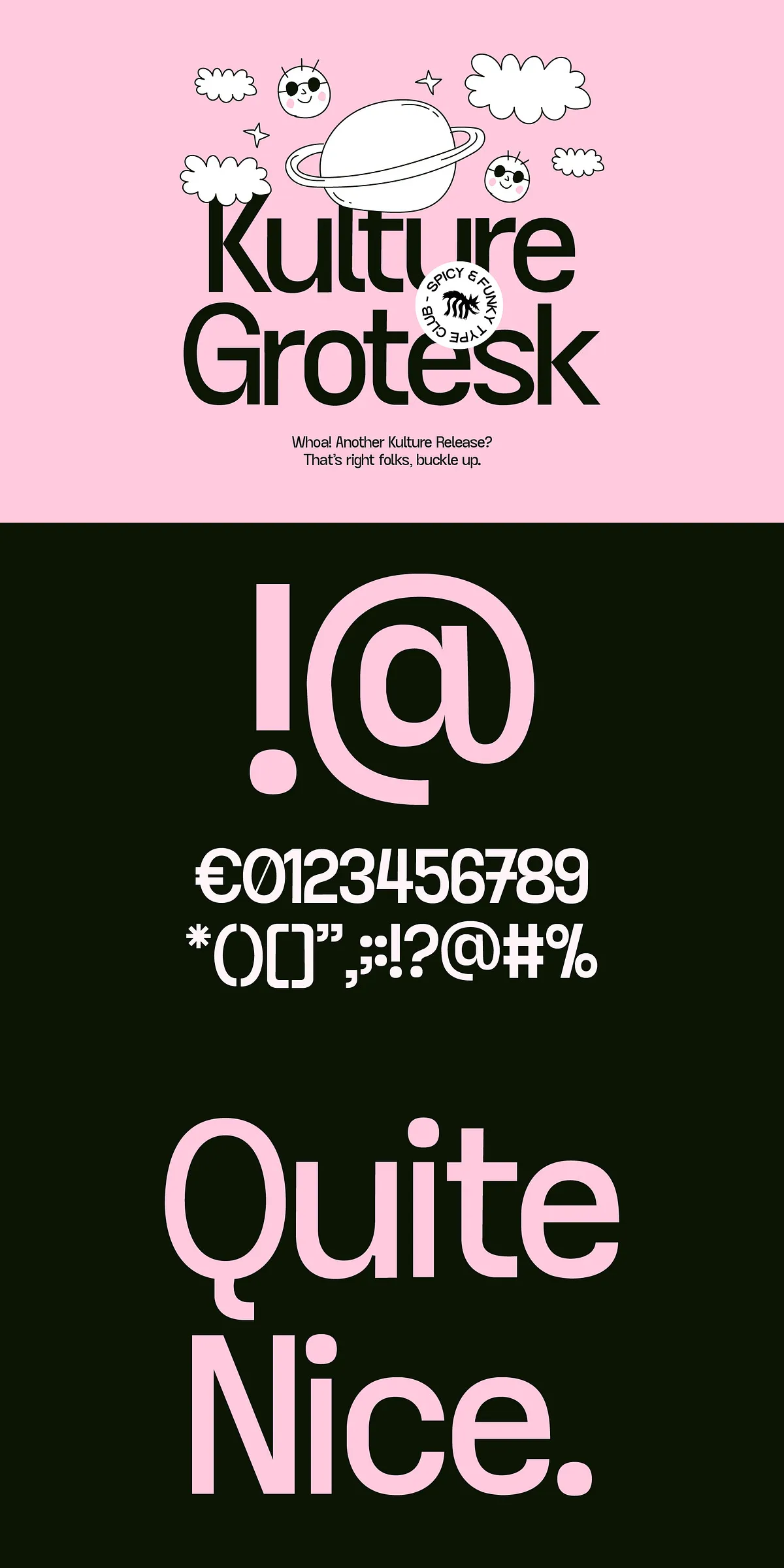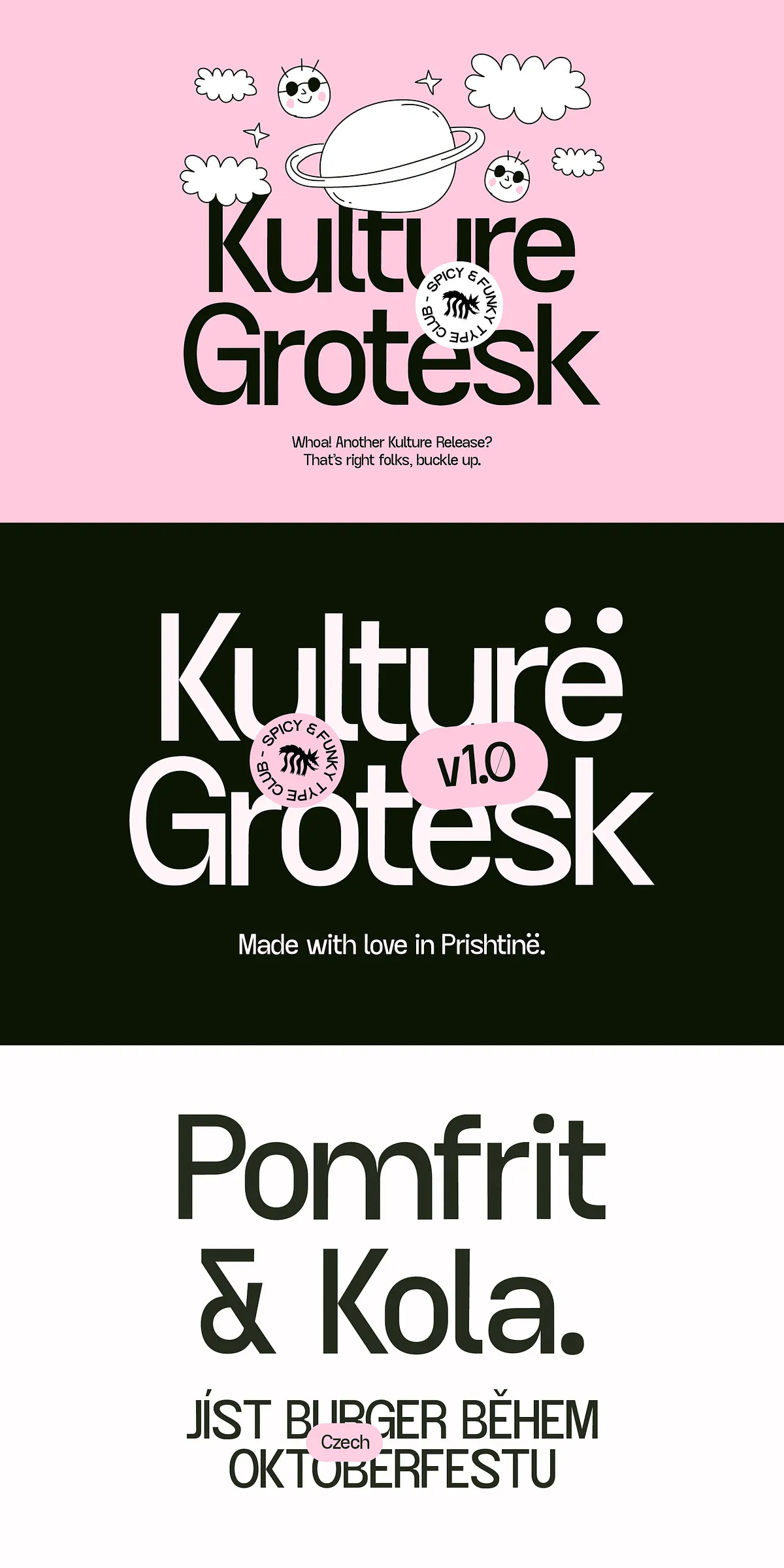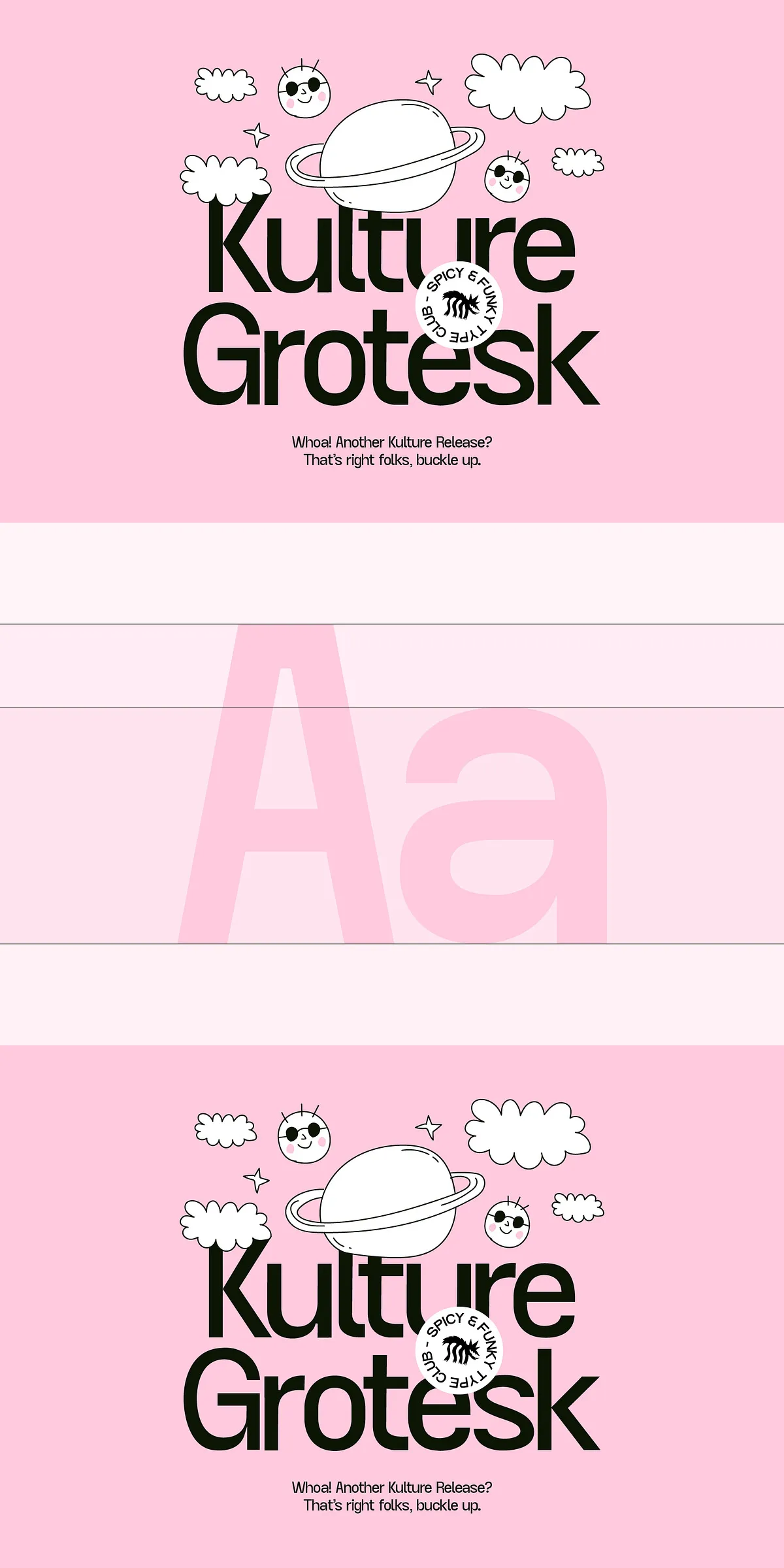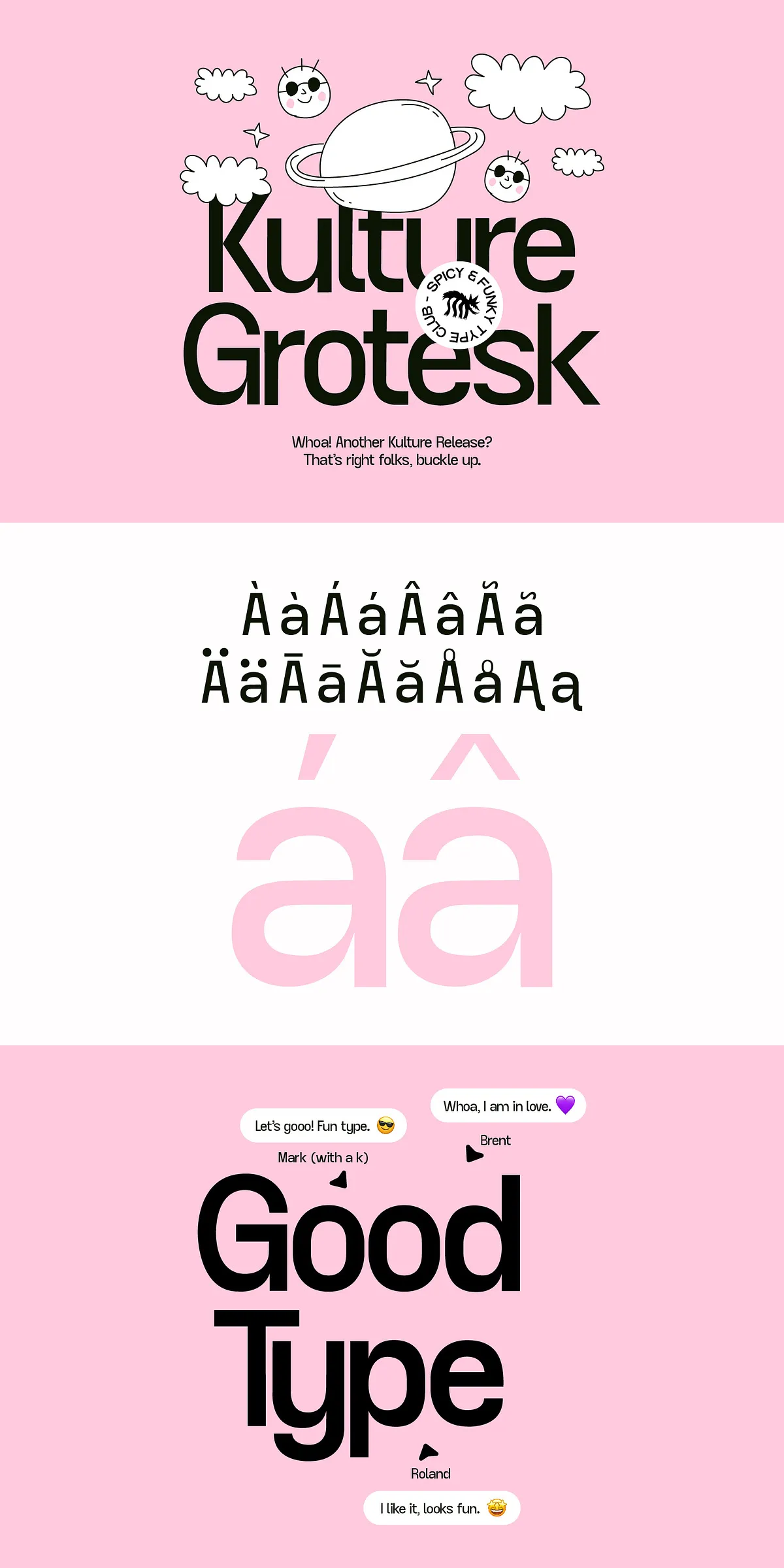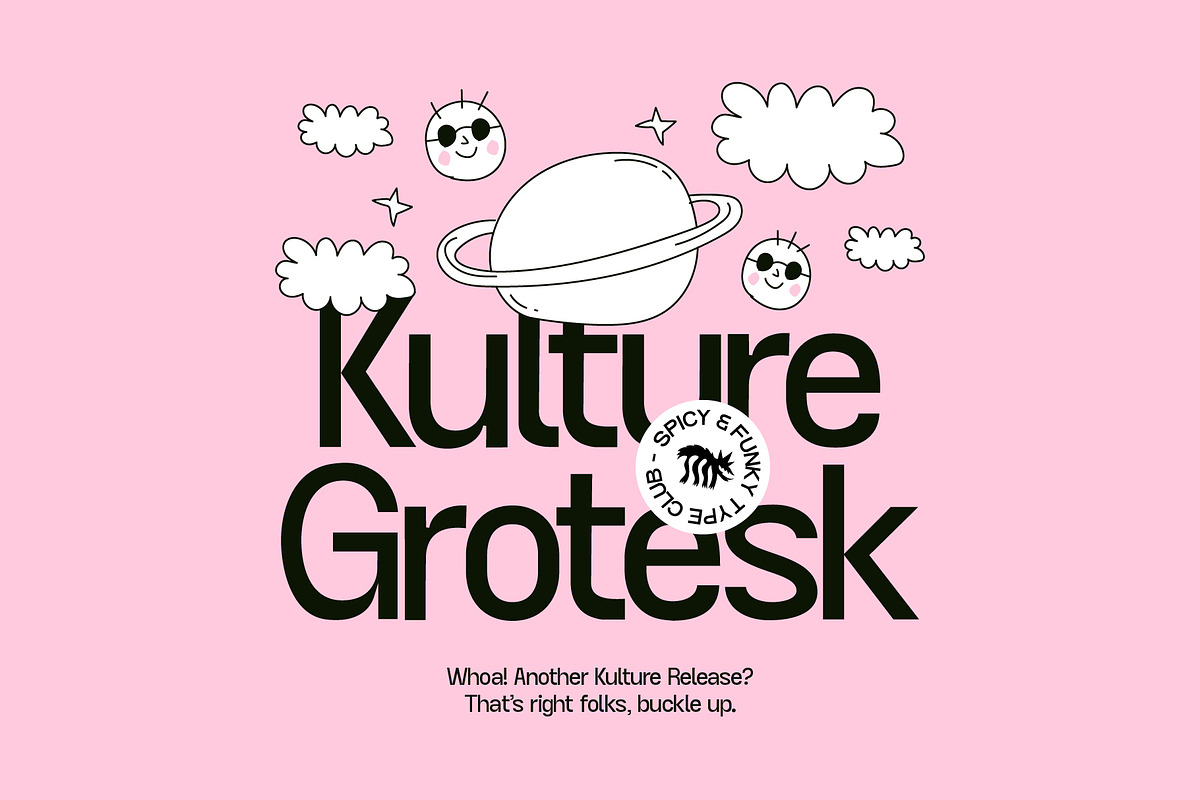
Meet Kulturë Type, the latest addition to our type family and a meticulously crafted grotesk font designed for clarity, elegance, and effortless versatility. Born from our commitment to clean, functional design, Kulturë Type strikes the perfect balance between understated sophistication and quiet character—exactly what modern projects demand. Whether you’re developing a corporate identity, launching a digital publication, or designing a minimalist website, this font delivers professional polish with just a hint of personality.
Why Kulturë Type Stands Out: Less Is More, But with Purpose
Unlike flashy or overly stylized fonts, Kulturë Type embraces minimalism without losing soul. We intentionally reduced decorative elements and exaggerated forms to focus on what truly matters: readability, balance, and typographic harmony. This isn’t a font that shouts—it’s one that speaks clearly and confidently, letting your content take center stage while adding subtle visual rhythm and depth.
Designed with Intention and Precision
- Minimalist, Clean Aesthetic: Streamlined letterforms with subtle, humanist details create an instantly modern look that never feels cold or mechanical.
- Four Weights for Full Control: From light to bold, the 4-tiered weight system empowers you to build strong visual hierarchies—perfect for headlines, body text, captions, or branding.
- Exceptional Language Support: Built with global accessibility in mind. Kulturë Type supports more accents and language variants than any previous release—ideal for international brands, multilingual publications, and inclusive design.
- Thoughtful Design Philosophy: Each glyph is carefully optimized for legibility across screen and print, ensuring consistent performance in any medium.
Engineered for Real-World Design Workflows
Form follows function—and in the case of Kulturë Type, function is king. It’s built to integrate seamlessly into both digital and print environments, without compromise.
- Scalable & Responsive: Looks sharp at small sizes for body text and at giant proportions for headlines. Ideal for responsive web design and high-resolution print layouts.
- OpenType Features Included: Supports advanced typographic controls like ligatures, small caps, and stylistic alternates—giving you creative control while keeping the design clean.
Perfect for Designers Who Value Quality Over Flash
Kulturë Type isn’t for those chasing trends. It’s for designers who appreciate thoughtful craftsmanship and timeless appeal. It fits seamlessly into brand systems, editorial layouts, UI components, and marketing campaigns where subtle excellence makes a lasting impression.
Where to Use Kulturë Type: High-Impact, Low-Noise Applications
Let your work shine with a font that’s both powerful and restrained:
- Brand Identity & Corporate Design: Create strong, consistent visual systems for clients who value professionalism and discretion.
- Editorial & Publishing: Use across magazines, books, newsletters, and online content for clean, readable, and visually pleasing layouts.
- Web & App Interface Design: Serve as primary or secondary typeface in UIs where clarity and aesthetic balance are essential.
- Print & Packaging: Elevate business cards, brochures, packaging, and stationery with a font that feels premium without being flashy.
- Social Media & Digital Marketing: Craft compelling posts, banners, and headlines that stand out with quiet confidence.